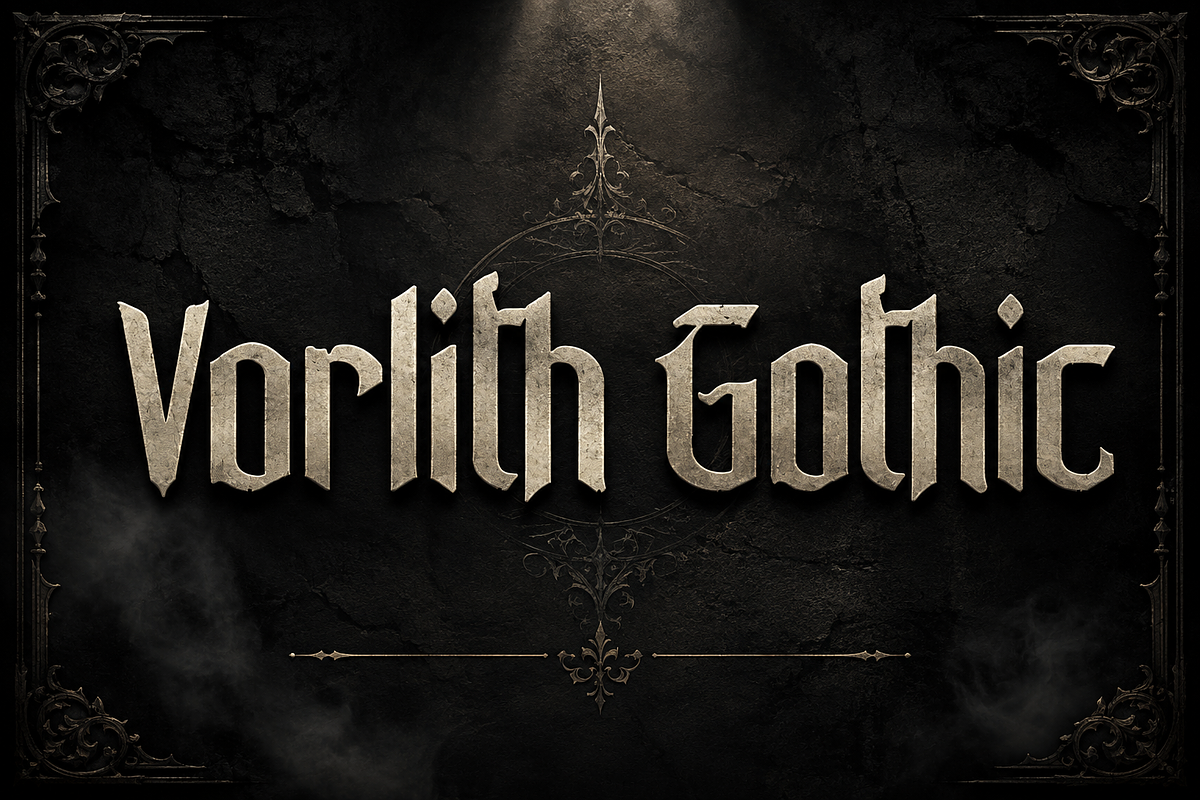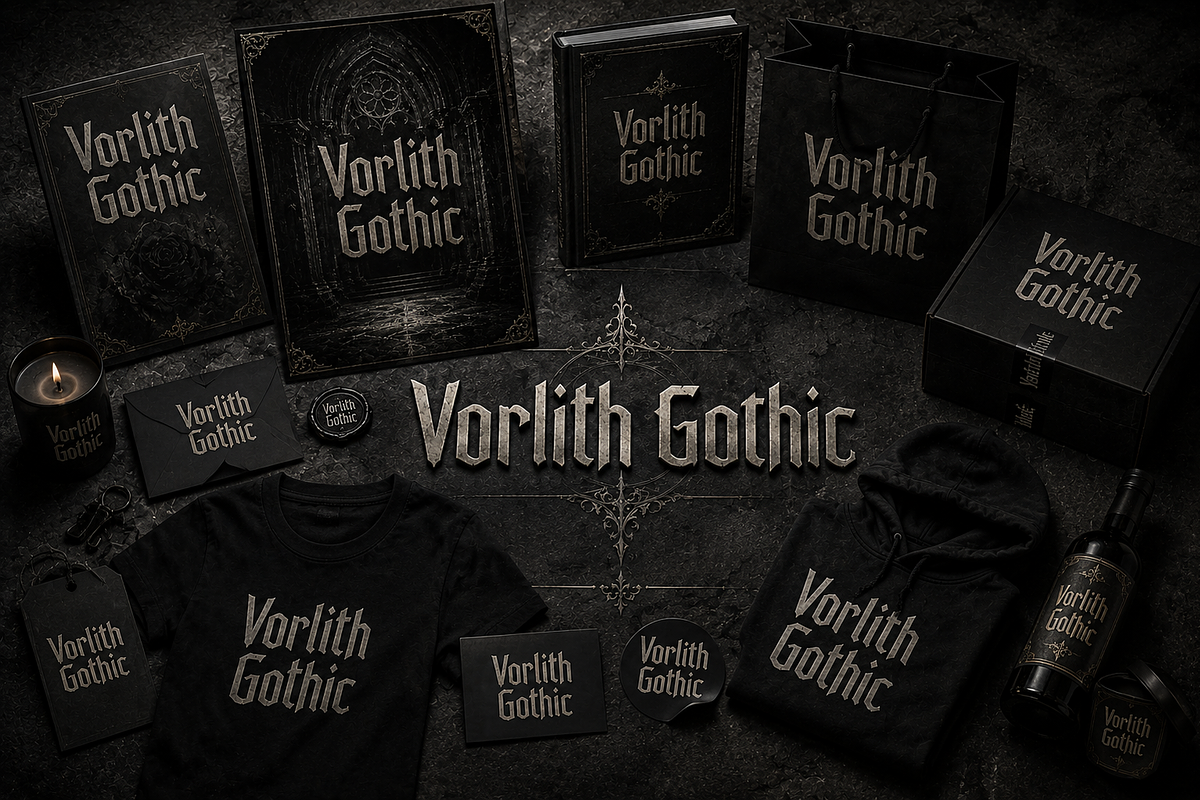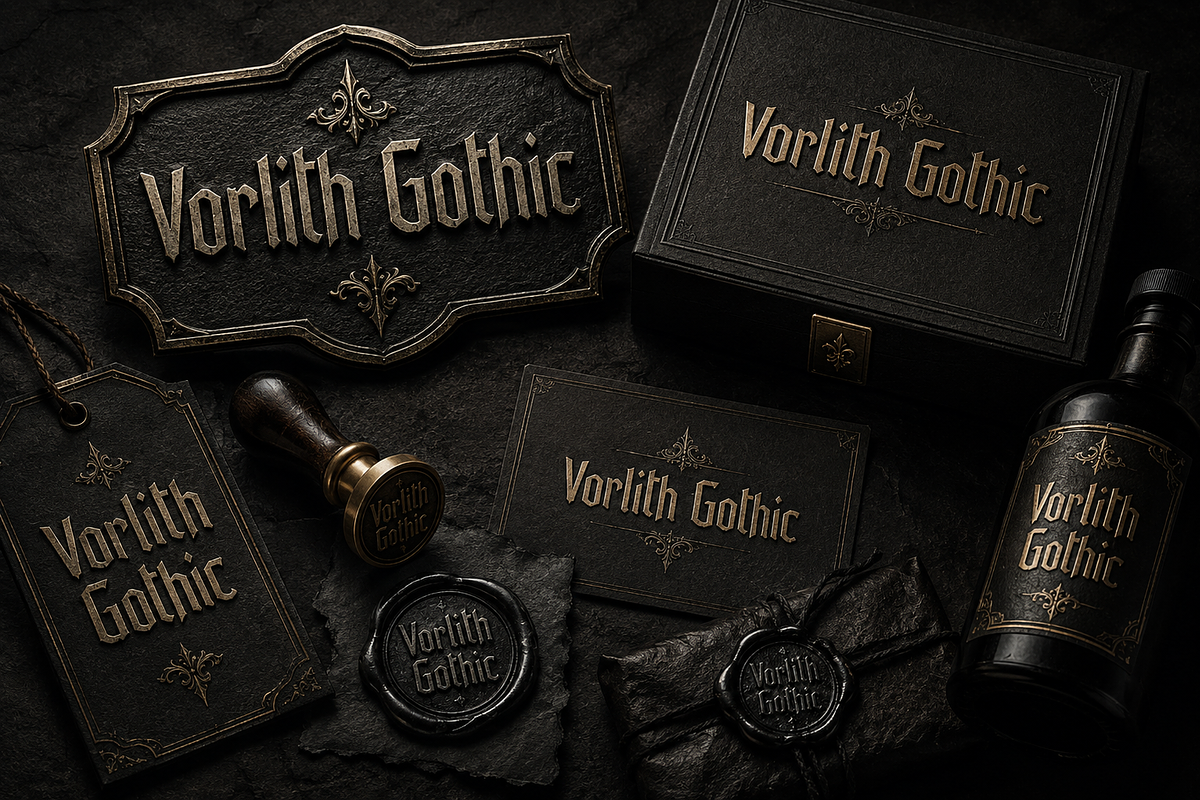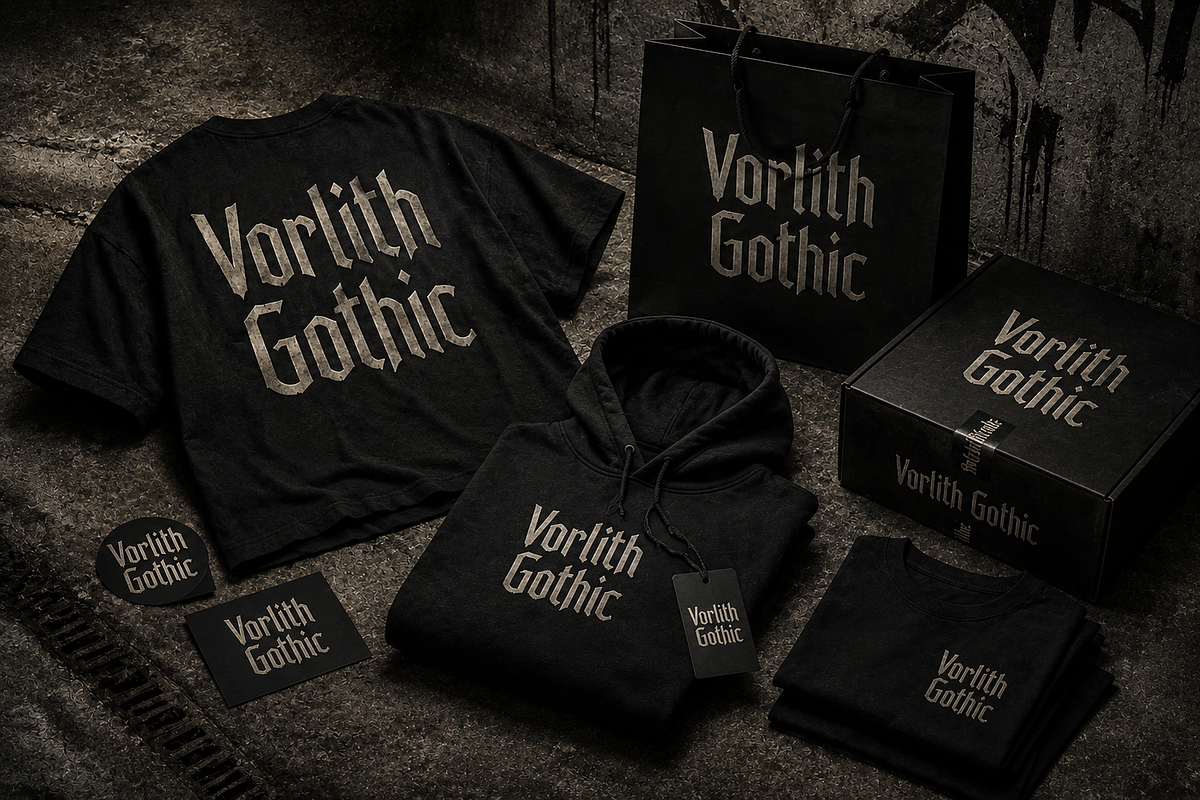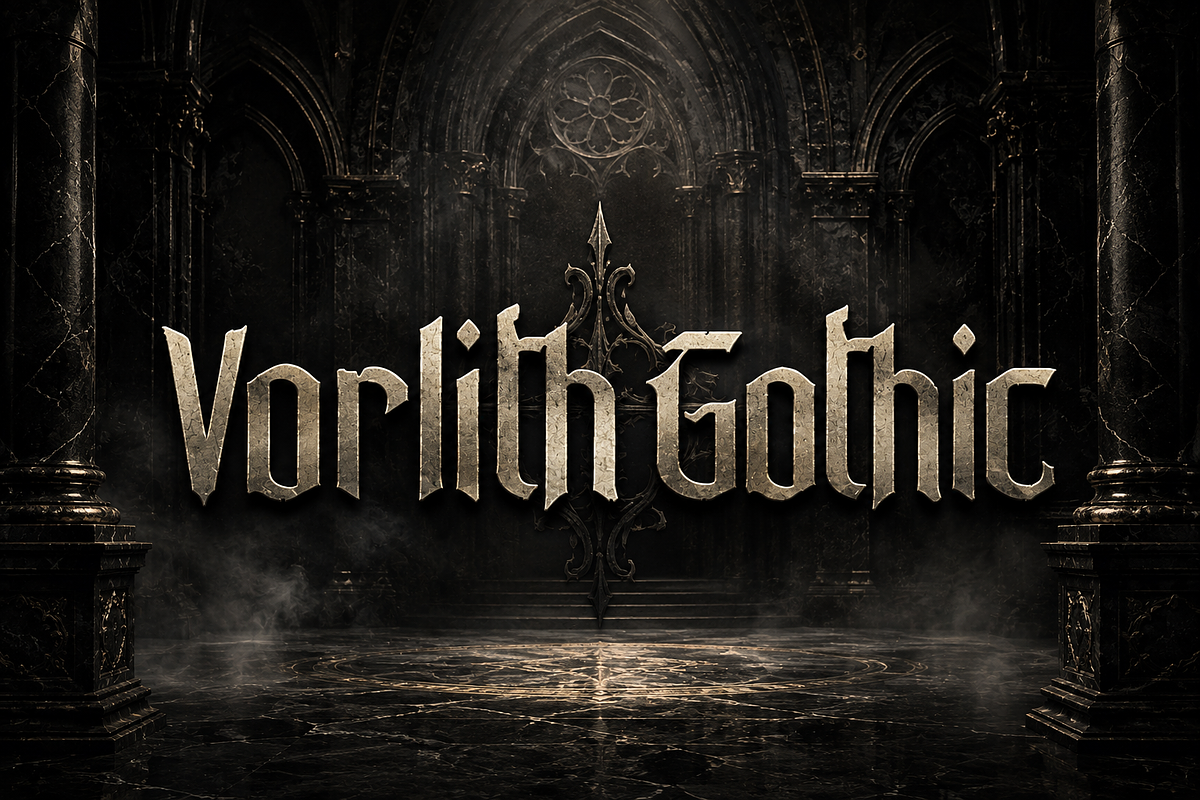
Vorlith Gothic
Vorlith Gothic — Make every letter feel legendary.
Vorlith Gothic is a bold and atmospheric gothic display typeface inspired by medieval blackletter aesthetics, dark fantasy, and timeless gothic architecture. Its sharp, dramatic letterforms bring a powerful historical character to modern designs while maintaining a strong, distinctive visual presence.
Perfect for creating striking logos, branding, posters, album artwork, book covers, fashion graphics, apparel designs, packaging, labels, merchandise, invitations, editorial layouts, and dark-themed promotional artwork.
Vorlith Gothic works especially well when you want your design to feel mysterious, powerful, medieval, luxurious, dramatic, and rebellious. Whether you're creating a gothic brand identity, dark fashion collection, fantasy artwork, or cinematic poster, this typeface is designed to make a strong visual statement.
Gothic & Medieval Branding
Luxury Brand Identity
Dark Fashion & Streetwear
T-Shirt & Apparel Design
Posters & Flyers
Album & Music Artwork
Book & Cover Design
Packaging & Product Labels
Fantasy & Dark-Themed Designs
Editorial & Promotional Graphics
Stickers & Merchandise
Invitations & Special Event Designs